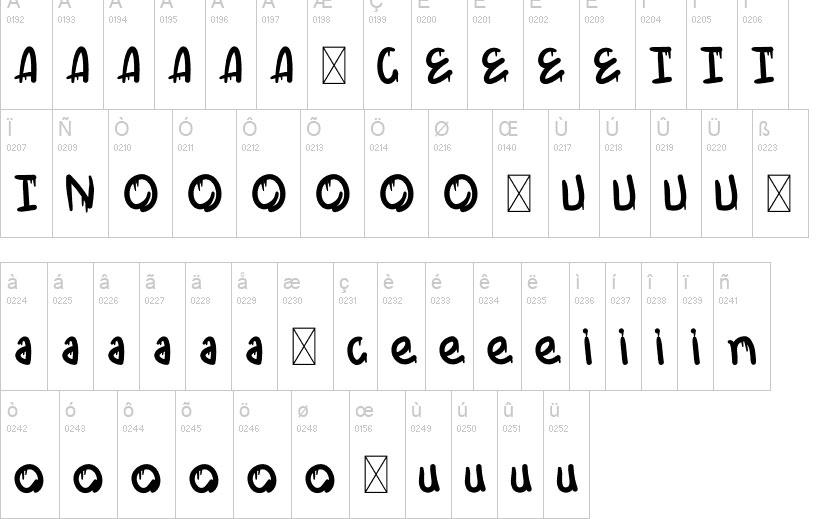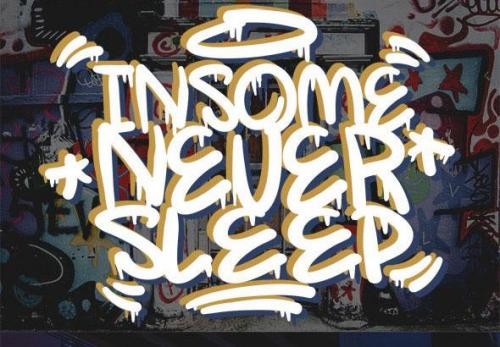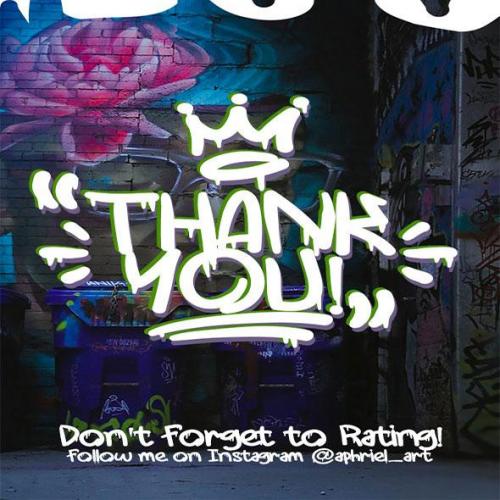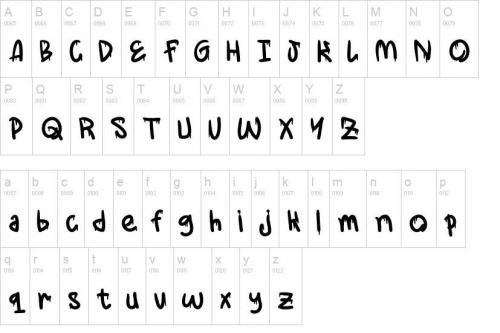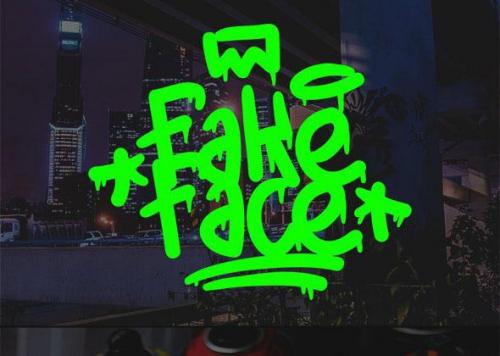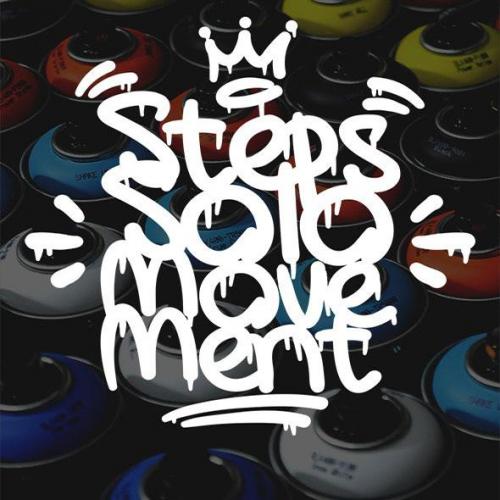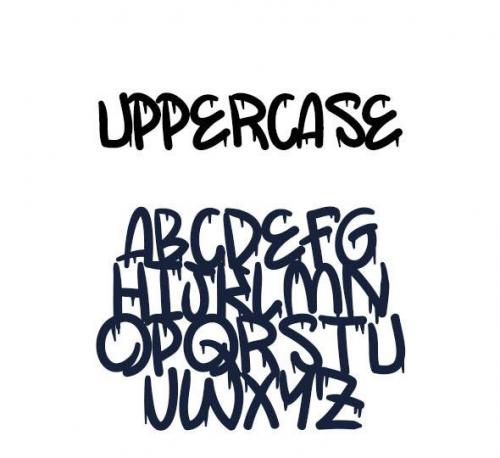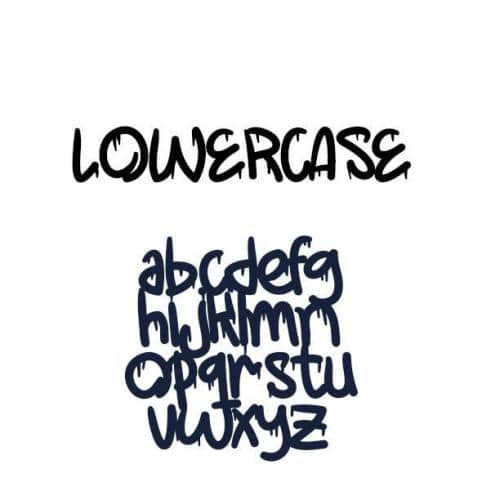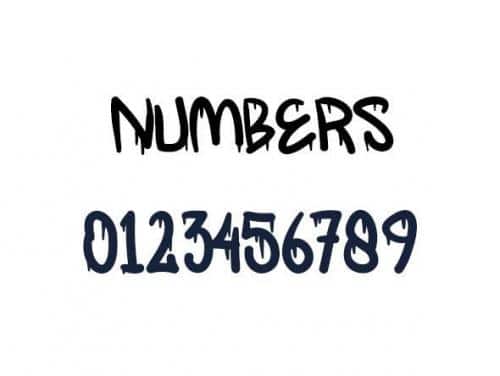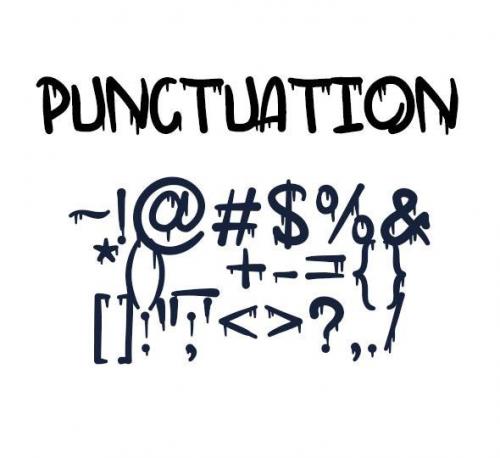
Lowback is a cute and quirky display font. It will add an incredibly joyful touch to your designs. Add this beautiful display font to each of your creative ideas and notice how it makes them stand out!
- Designer: Esa Nugroho